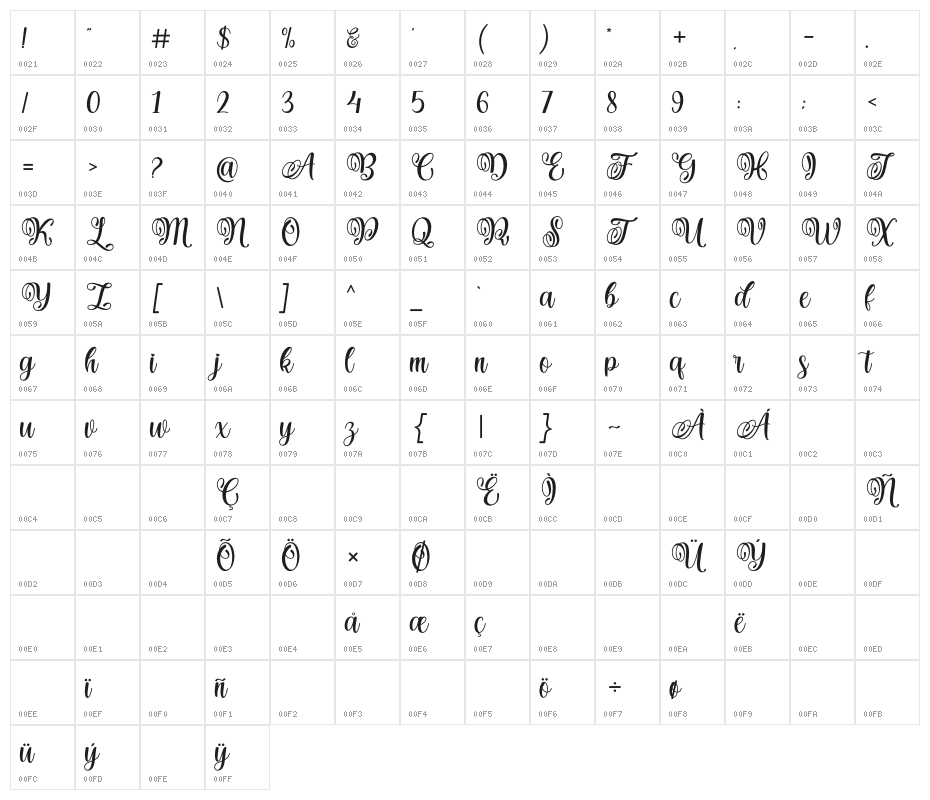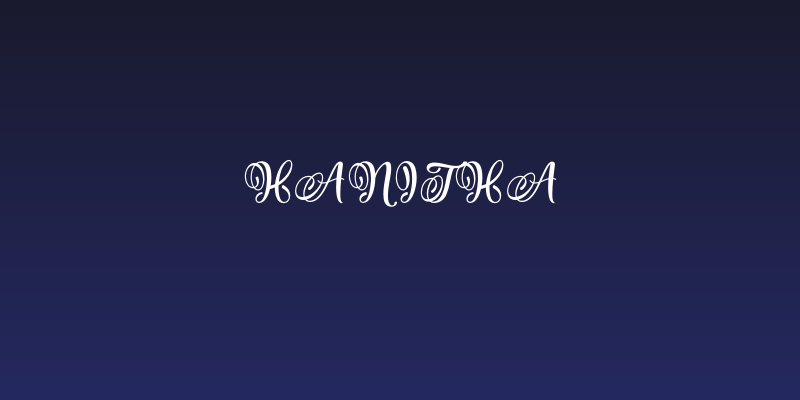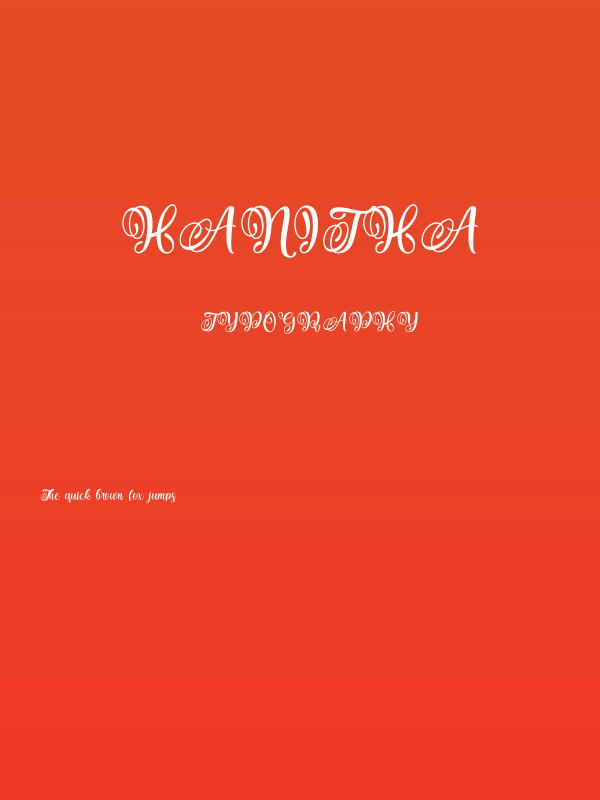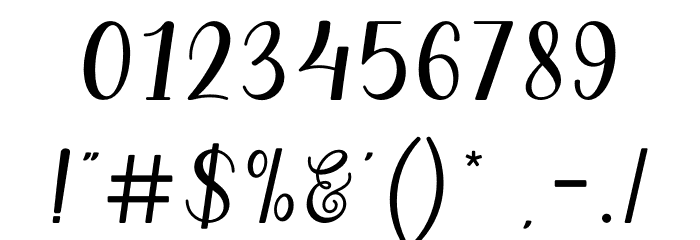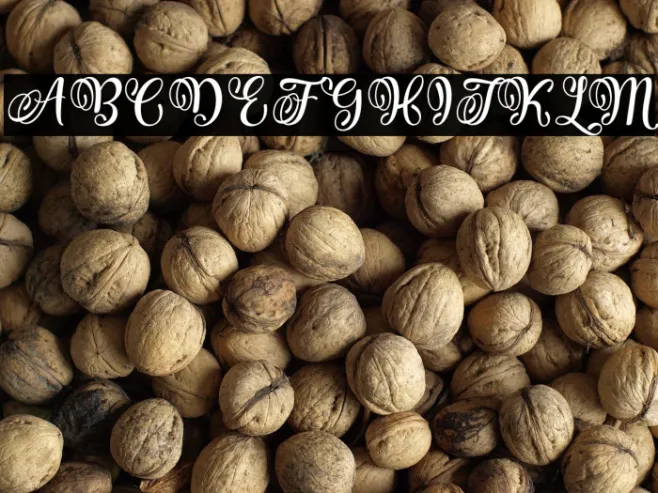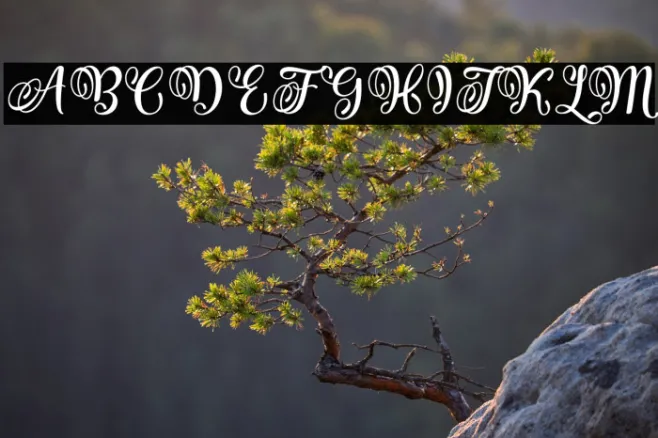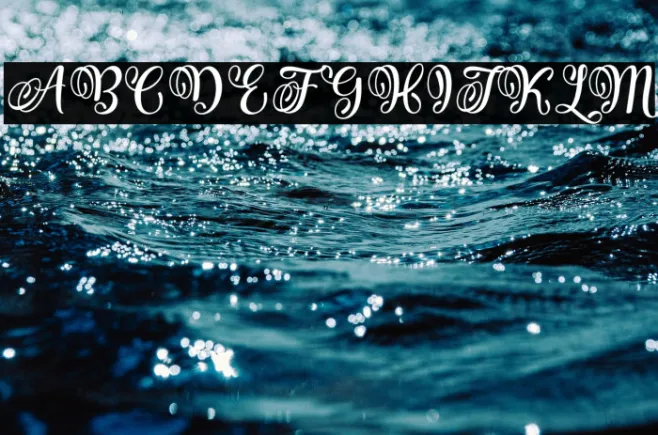
Hanitha Font
Hanitha Description
This font features an elegant and flowing script style, characterized by its intricate swirls and loops. The uppercase letters are particularly ornate, with decorative flourishes that add a touch of sophistication and charm. The lowercase letters maintain a smooth and consistent flow, making them highly readable despite their decorative nature. The numbers and special characters are designed to complement the overall style, ensuring a cohesive look across all text. This font is ideal for projects that require a touch of elegance and creativity, such as invitations, branding, and decorative signage.
| Proposed Projects | Ideal for wedding invitations, branding, decorative signage, and creative projects. |